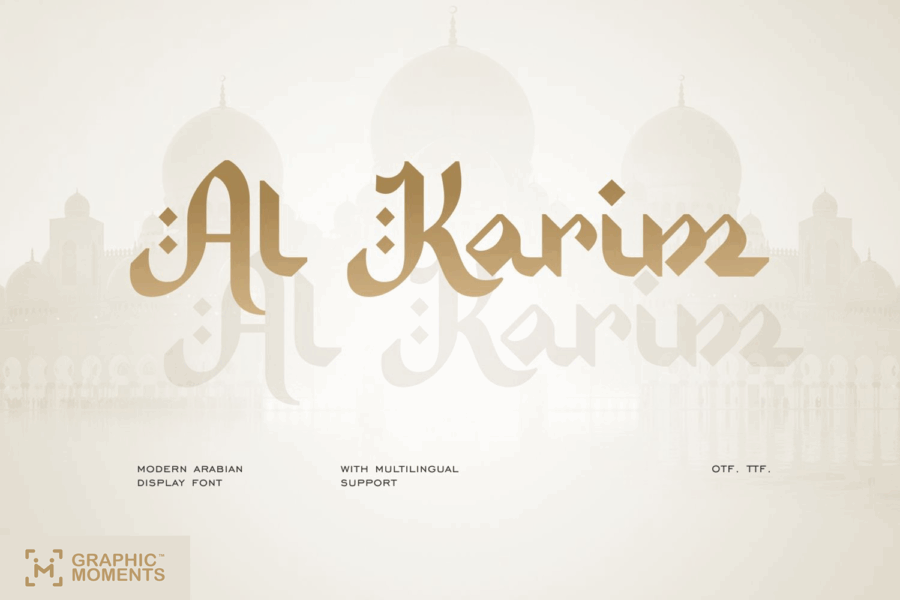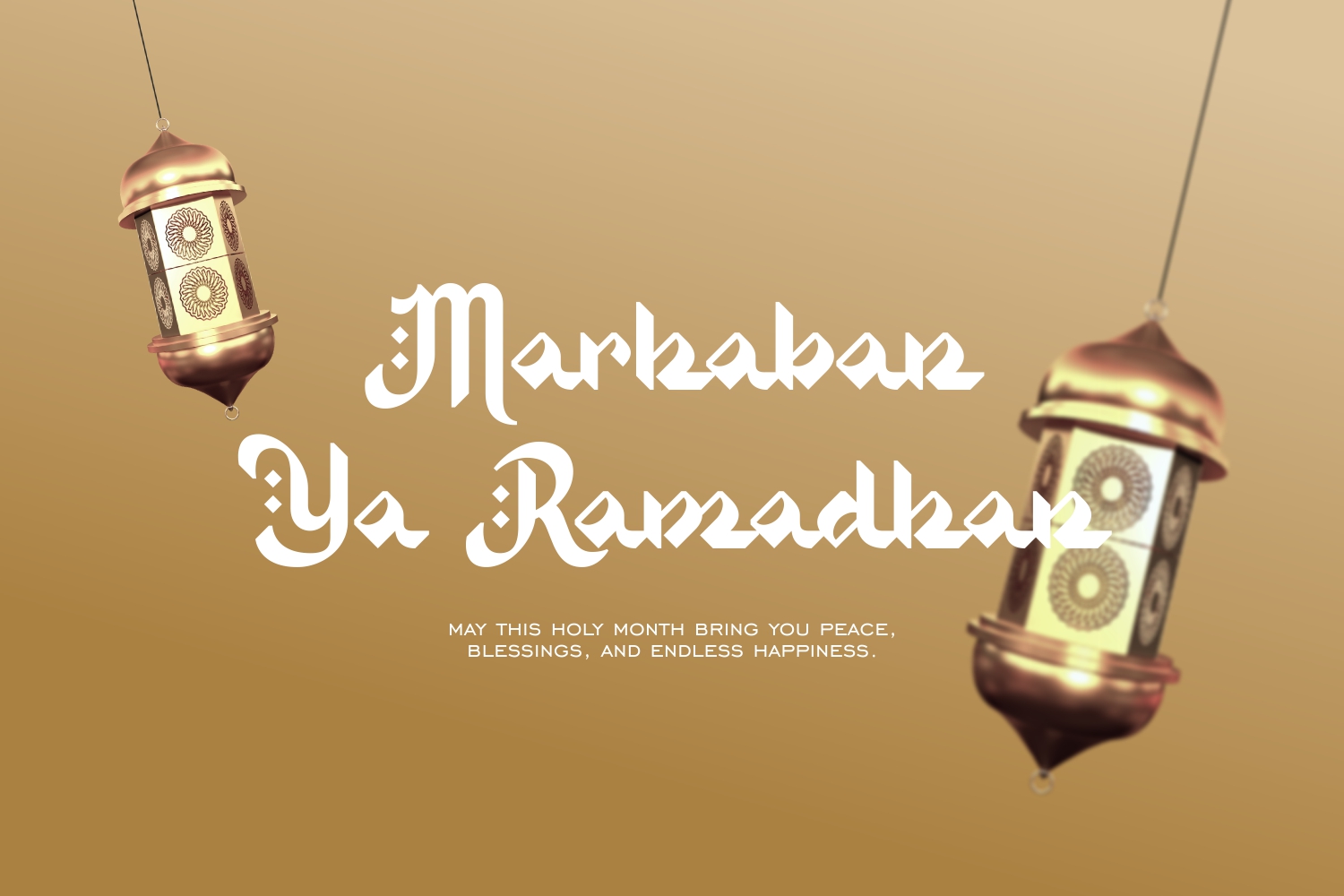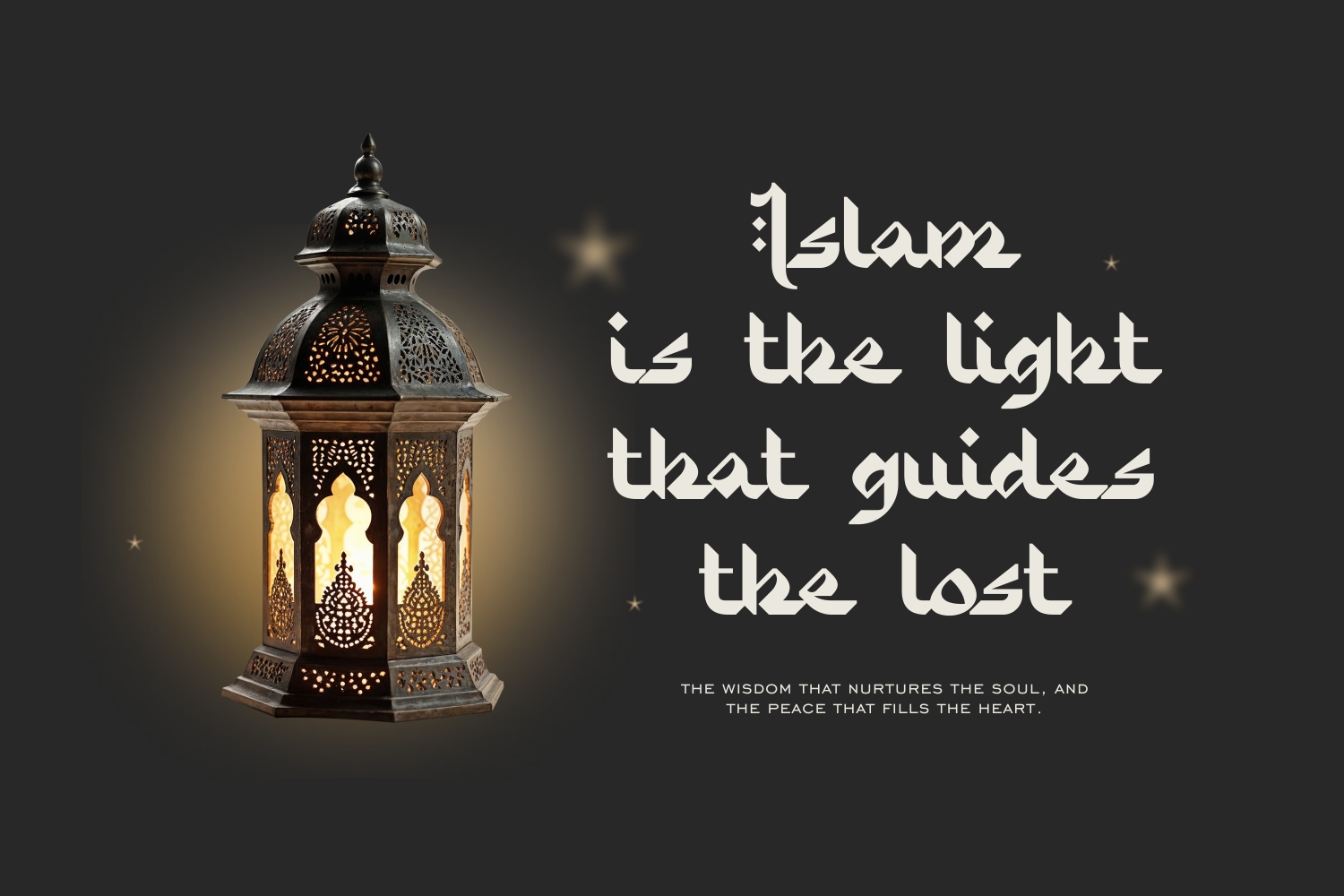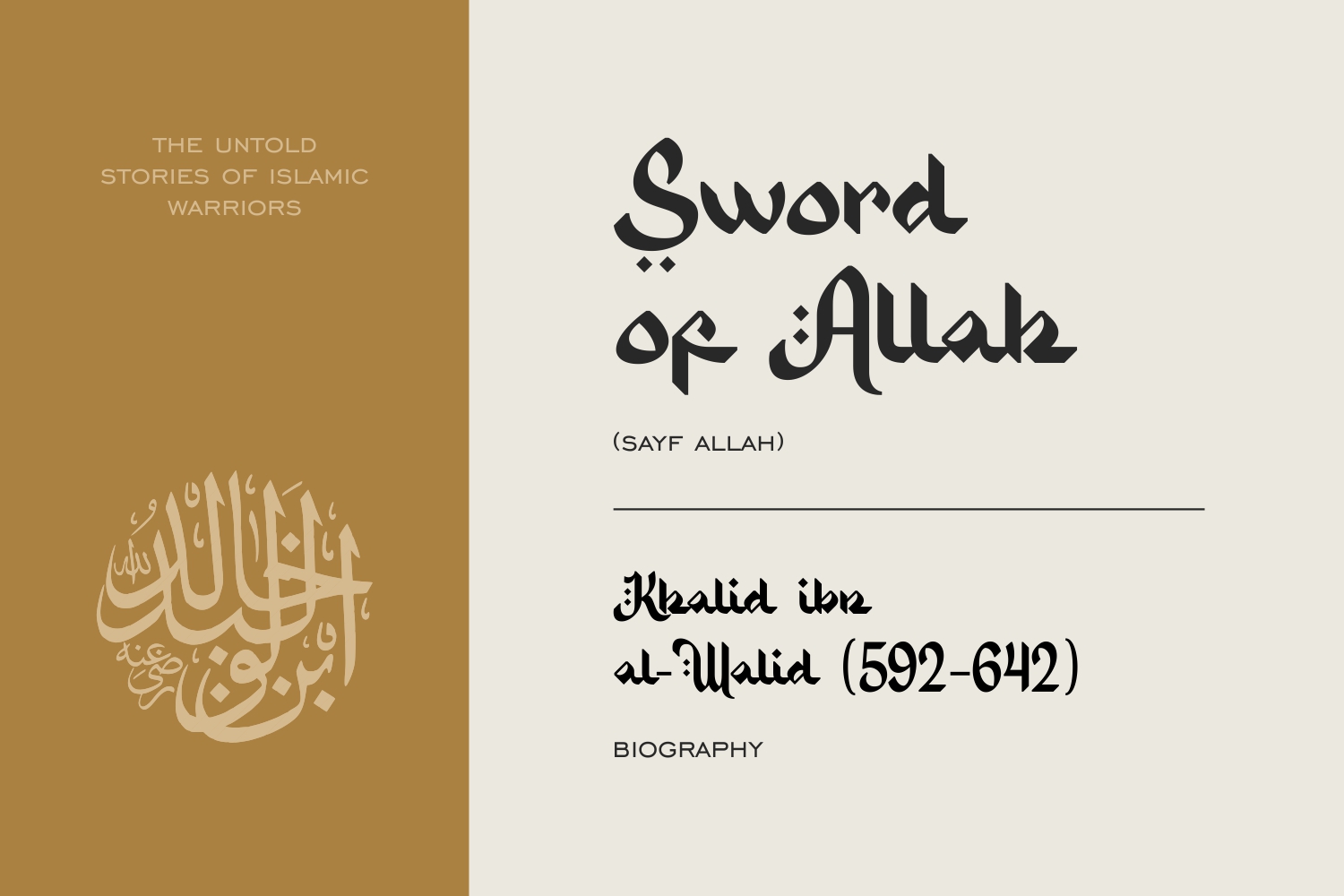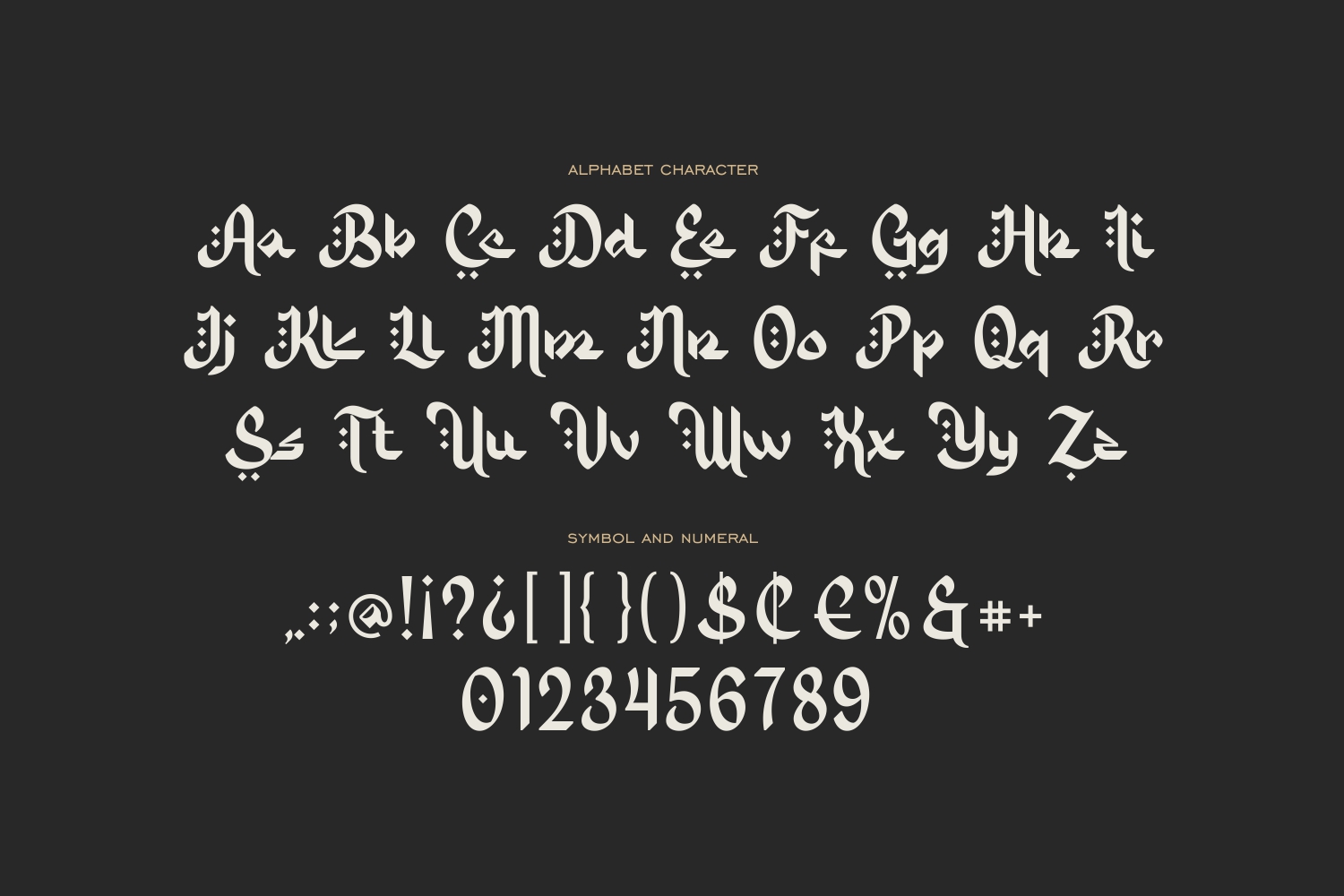
Al Karim is a bold and decorative display font inspired by classic Arabic calligraphy, with a modern twist. The font features thick, strong strokes and intricate details that give it a powerful yet elegant presence. Its unique styling, which includes both Latin and Arabic-like forms, makes it a perfect choice for designs that blend traditional artistry with contemporary design. The font also includes multilingual support, expanding its usability across different languages and projects.
This font is highly suitable for creating eye-catching headlines, logos, posters, and book covers. Its strong and sophisticated character makes it ideal for themes related to Islamic culture, history, and spirituality, such as for holiday greetings, educational materials, or inspirational quotes. Al Karim’s ability to be both decorative and highly readable makes it a versatile tool for designers who want to make a strong visual statement while honoring the beauty of Arabian script.
Al Karim